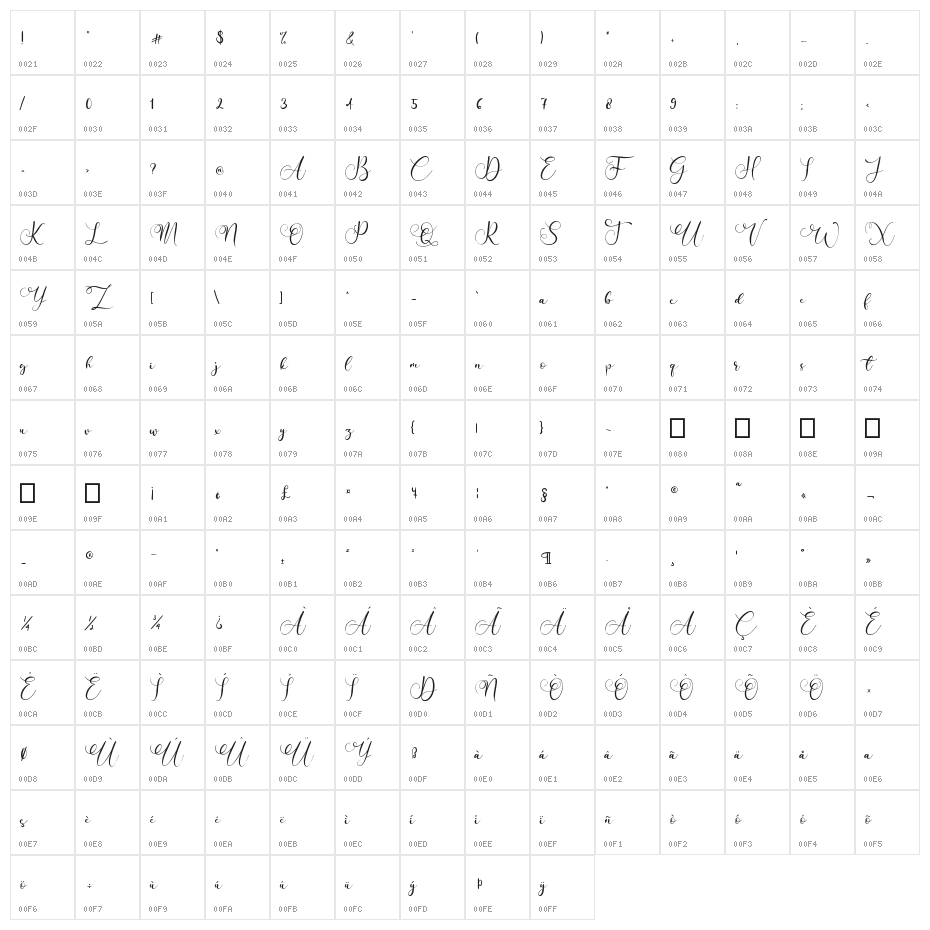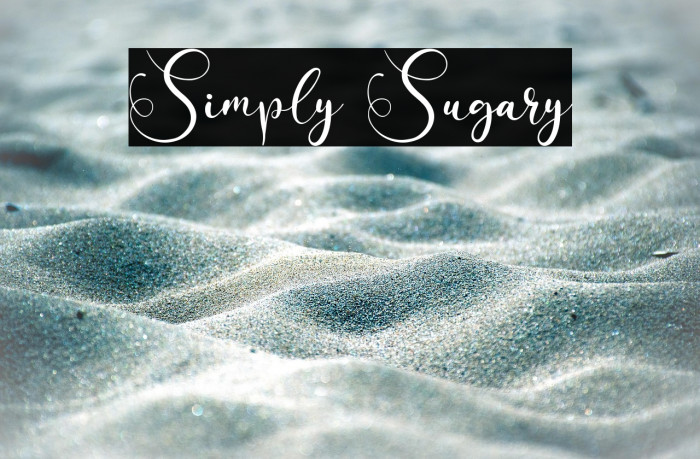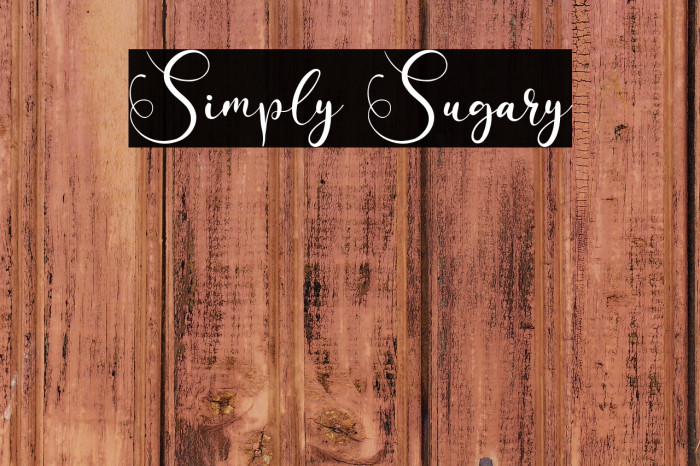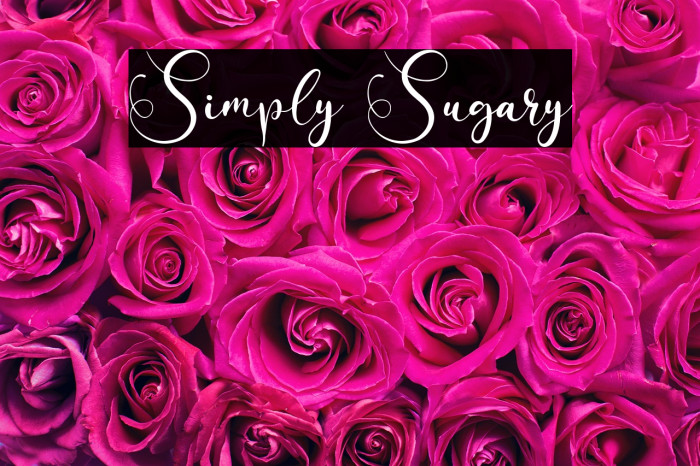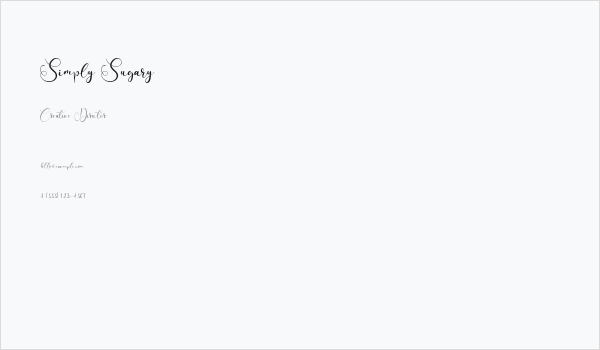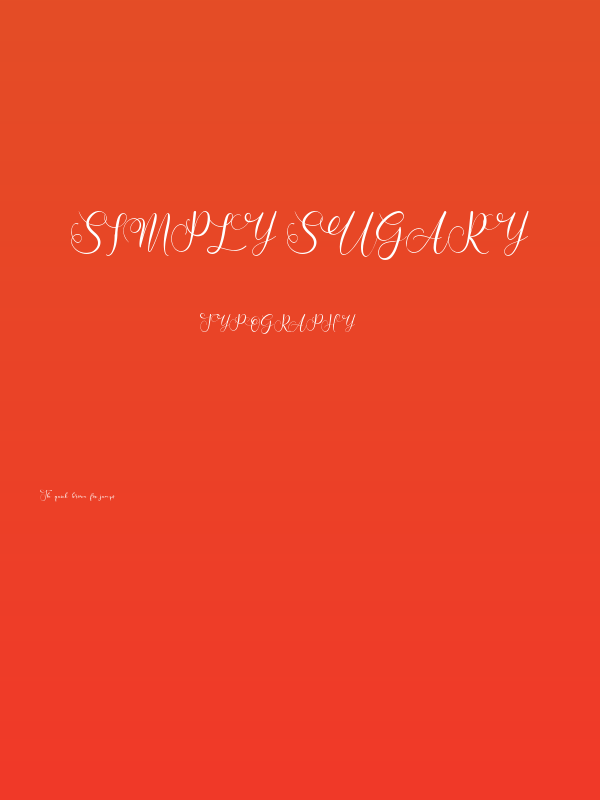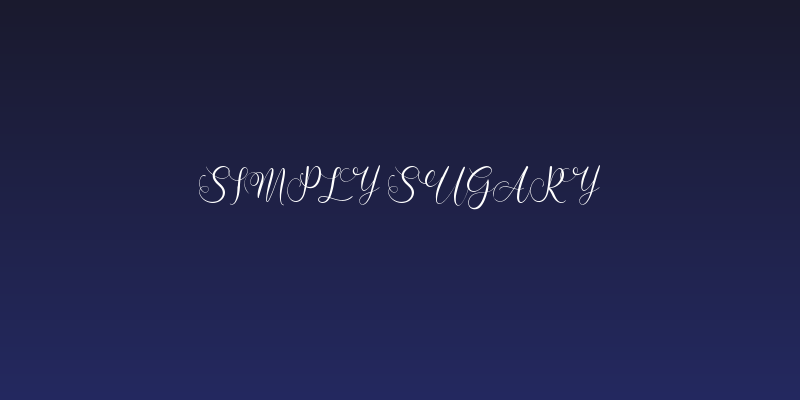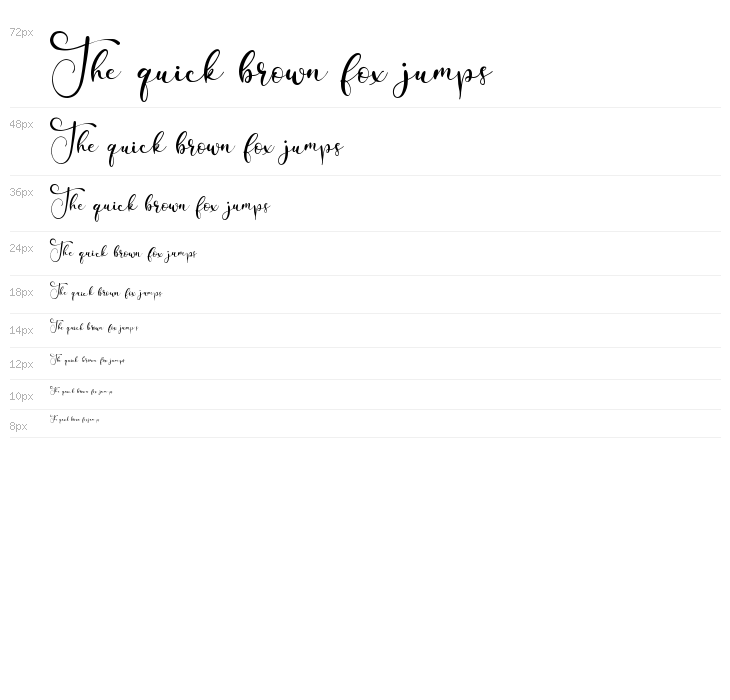
Simply Sugary Font
Simply Sugary Description
This font exudes elegance and sophistication with its flowing, cursive style. The uppercase letters are characterized by intricate loops and flourishes, giving them a decorative and ornate appearance. The lowercase letters maintain a consistent flow, with smooth curves and a slightly more restrained design compared to the uppercase. The numerals are clear and legible, while still retaining a touch of the font's overall decorative nature. Special characters are thoughtfully designed to match the aesthetic, ensuring a cohesive look across all text. This font is ideal for projects that require a touch of elegance and style.